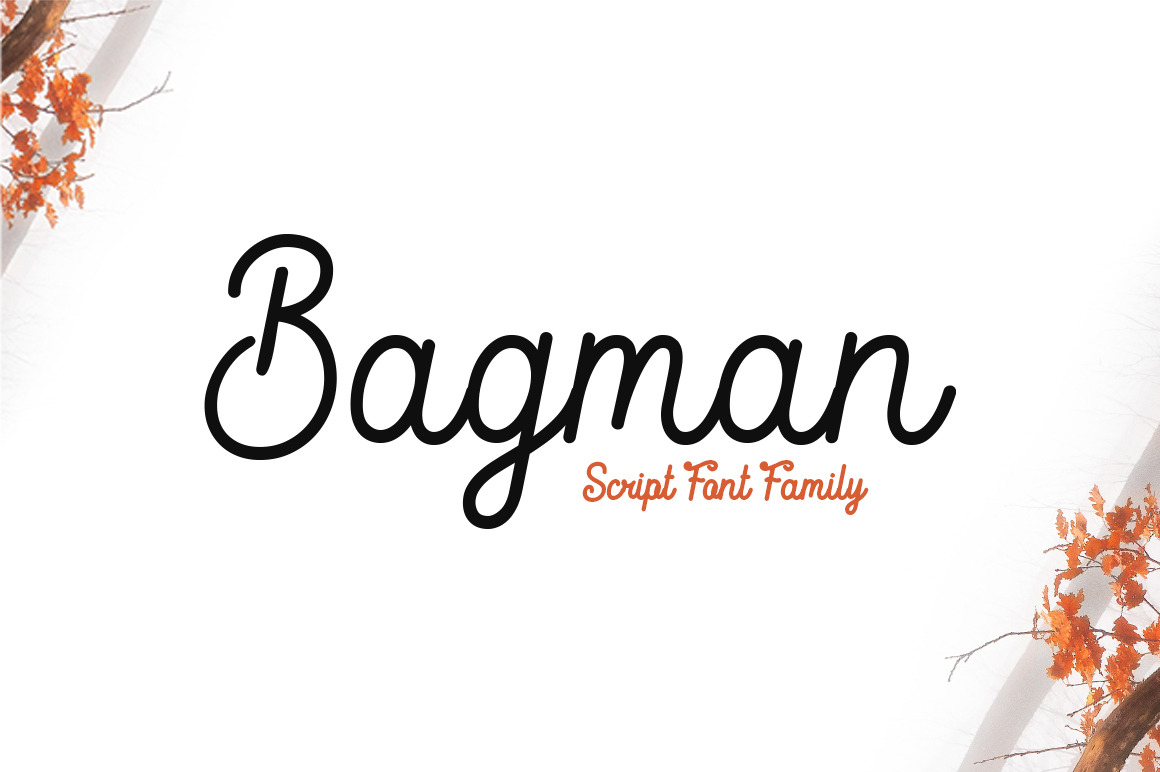
Bagman - Script Font
Bagman – Elegant Script Font Family
Introducing Bagman, an elegant script font family that combines smooth handwritten curves with timeless simplicity. Designed to feel natural, clean, and versatile, Bagman is an excellent choice for projects that need a warm, personal, and sophisticated touch.
Its balanced letterforms make it suitable for everything from modern branding to lifestyle products, while maintaining excellent readability across both print and digital media.
Logos & Logotypes
Branding & Visual Identity
Wedding Invitations
Greeting Cards
Business Cards
Quotes
Beauty & Fashion Branding
Photography Watermarks
Merchandise & Apparel
Elegant Handwritten Style
Standard Ligatures